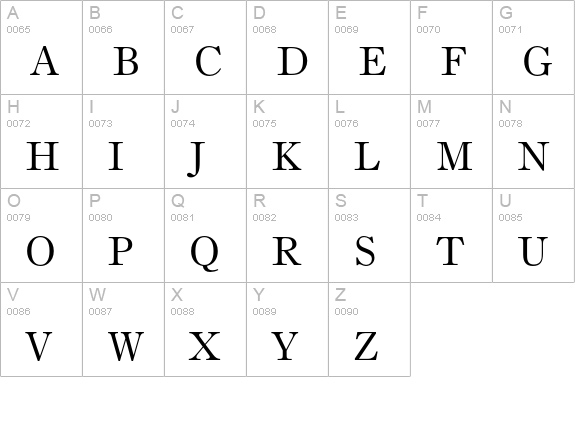
Bruce Old Style Font Details
Bruce Old Style font is a classic and elegant typeface that exudes sophistication and charm. With its timeless appearance and subtle vintage flair, this font is perfect for adding a touch of tradition to your designs. The gentle serifs and delicate lines of Bruce Old Style create a sense of refinement and grace, making it a versatile choice for a wide range of projects. Best of all, Bruce Old Style font is completely free to download at FontsMarket.com. Whether you're working on a professional project or a personal creative endeavor, this font is a fantastic addition to your typography arsenal. Don't miss out on the opportunity to enhance your designs with the timeless beauty of Bruce Old Style font - download it for free today!